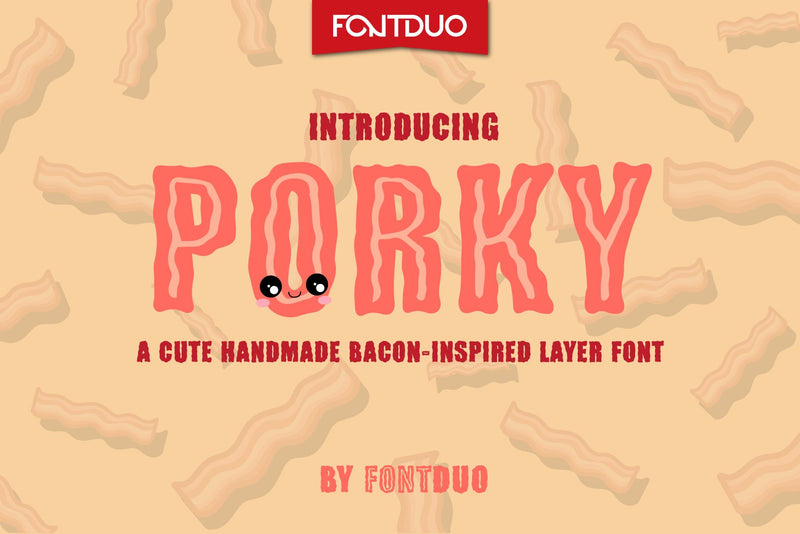
Porky Cute Kids Font
Porky is a cute and delicious handmade bacon-inspired layer font. Whatever the topic, this font will be a wonderful asset to your font library, as it has the potential to enhance any creation.